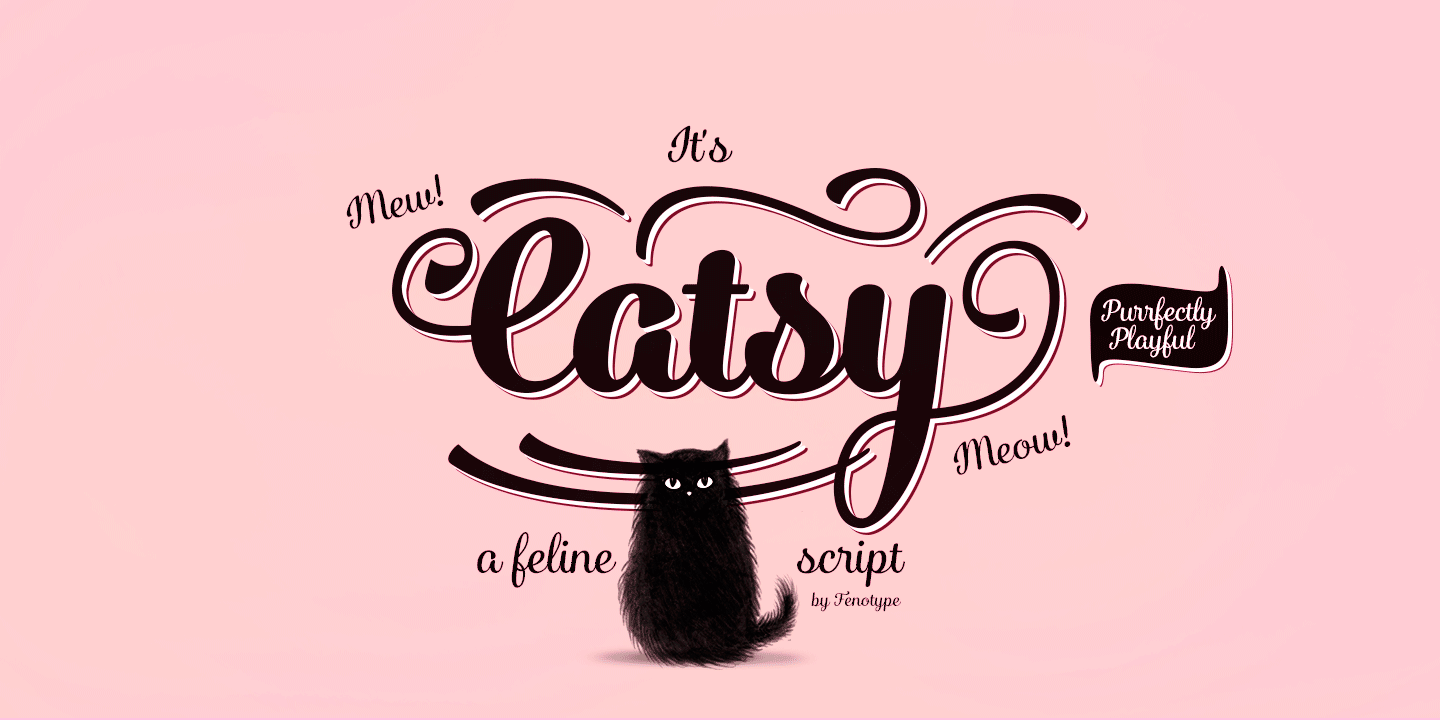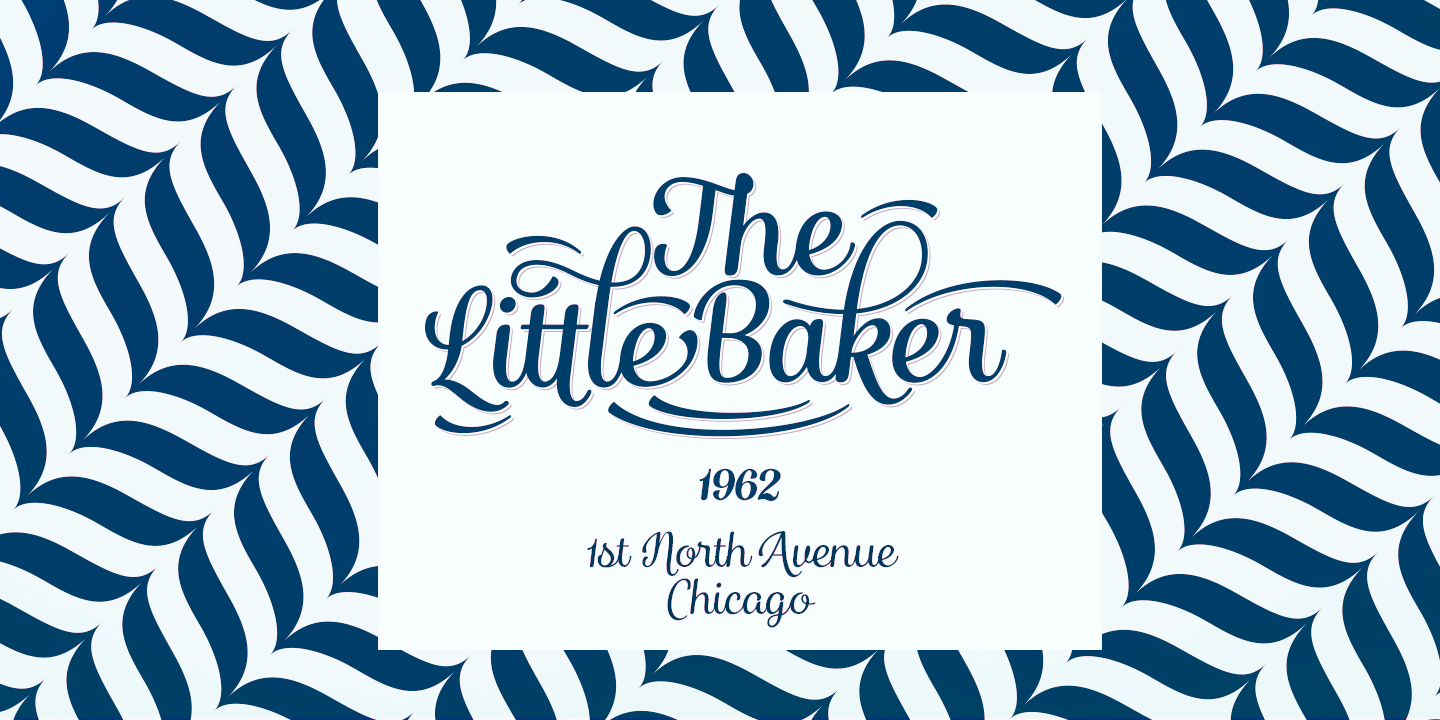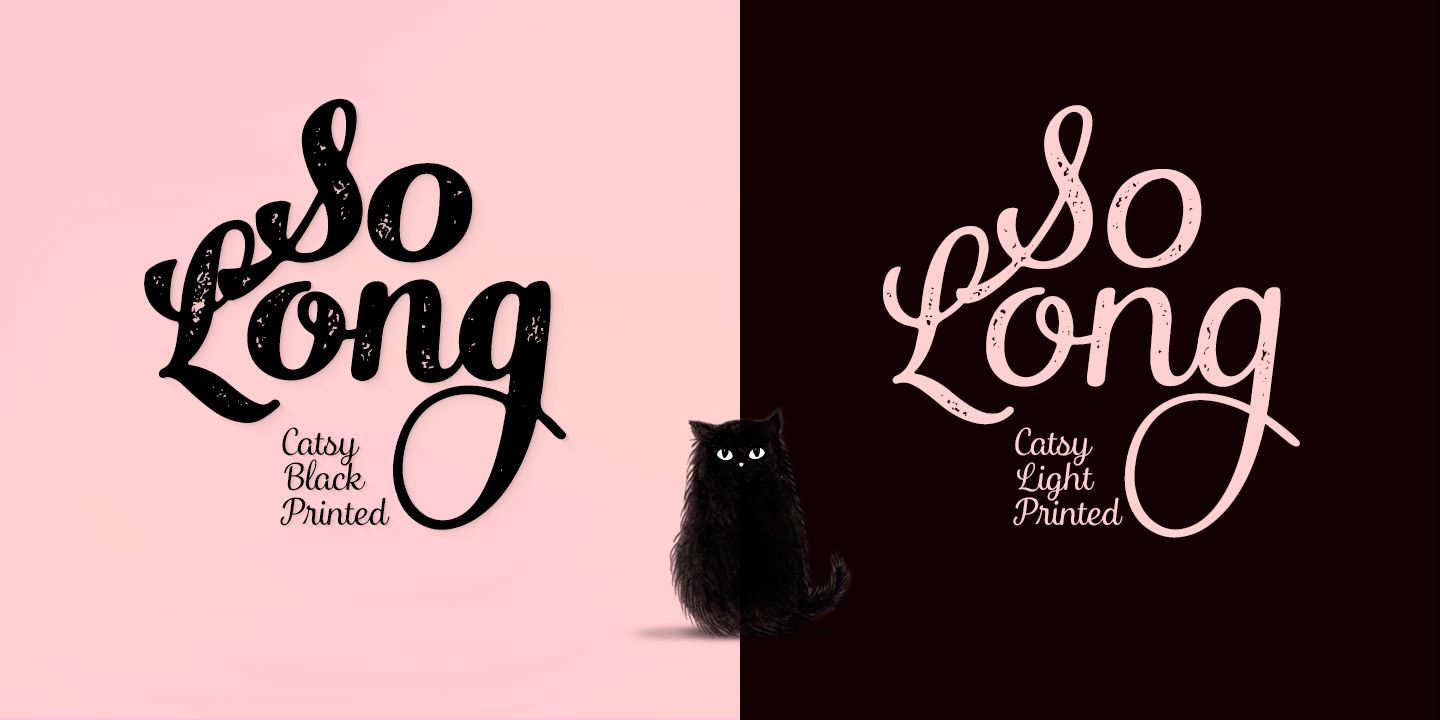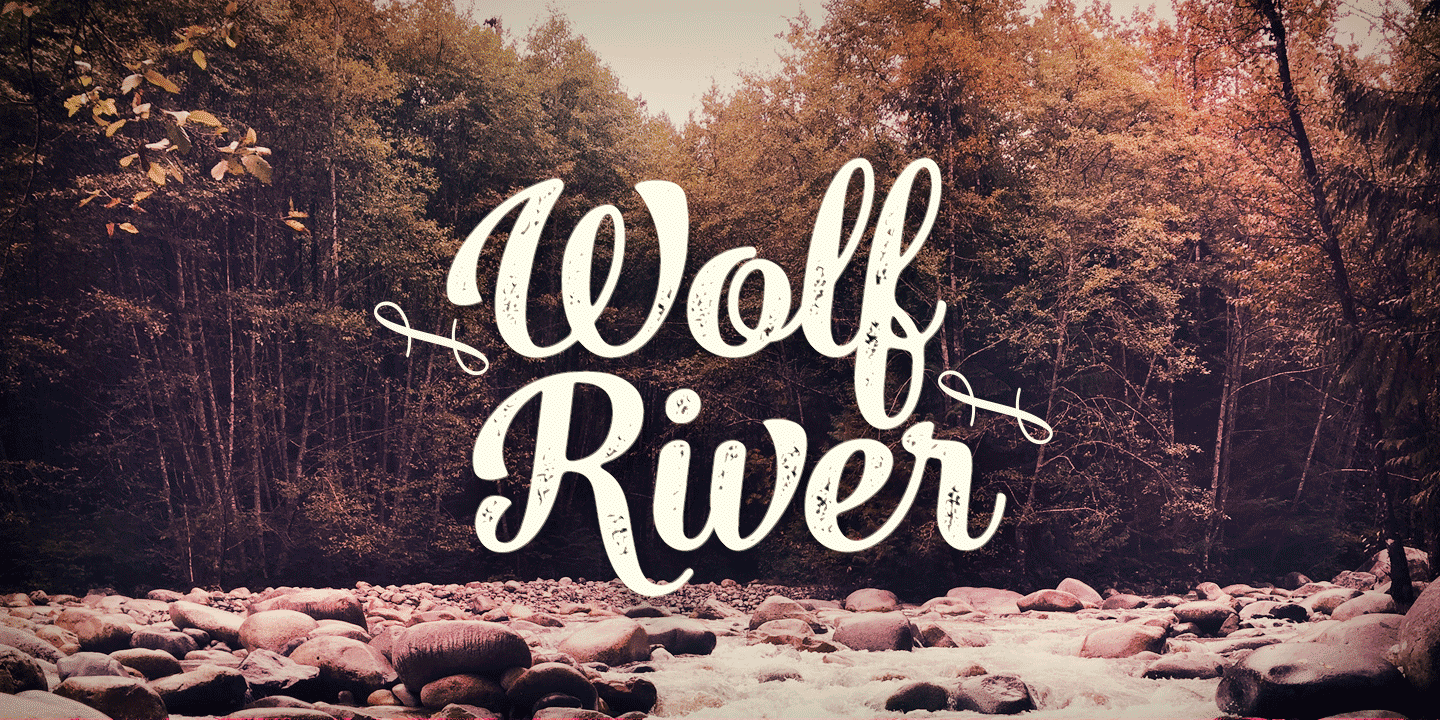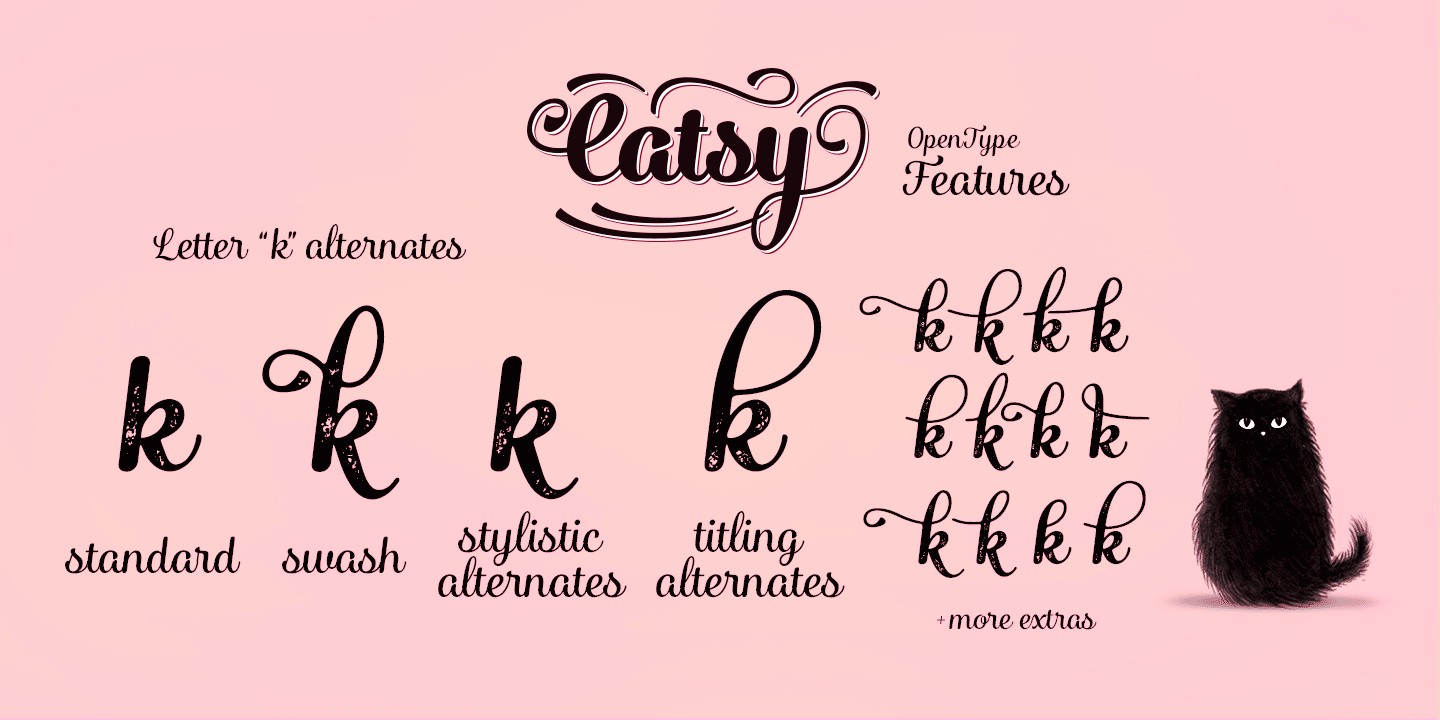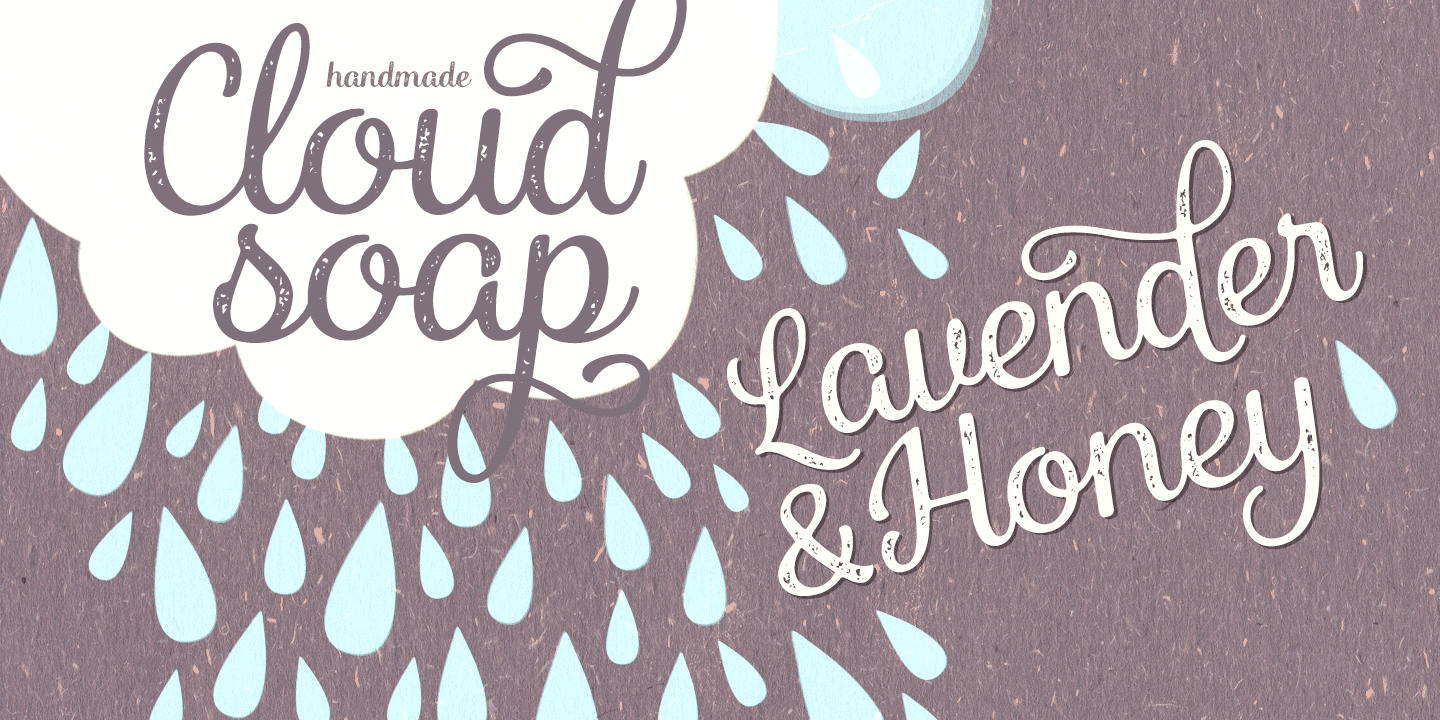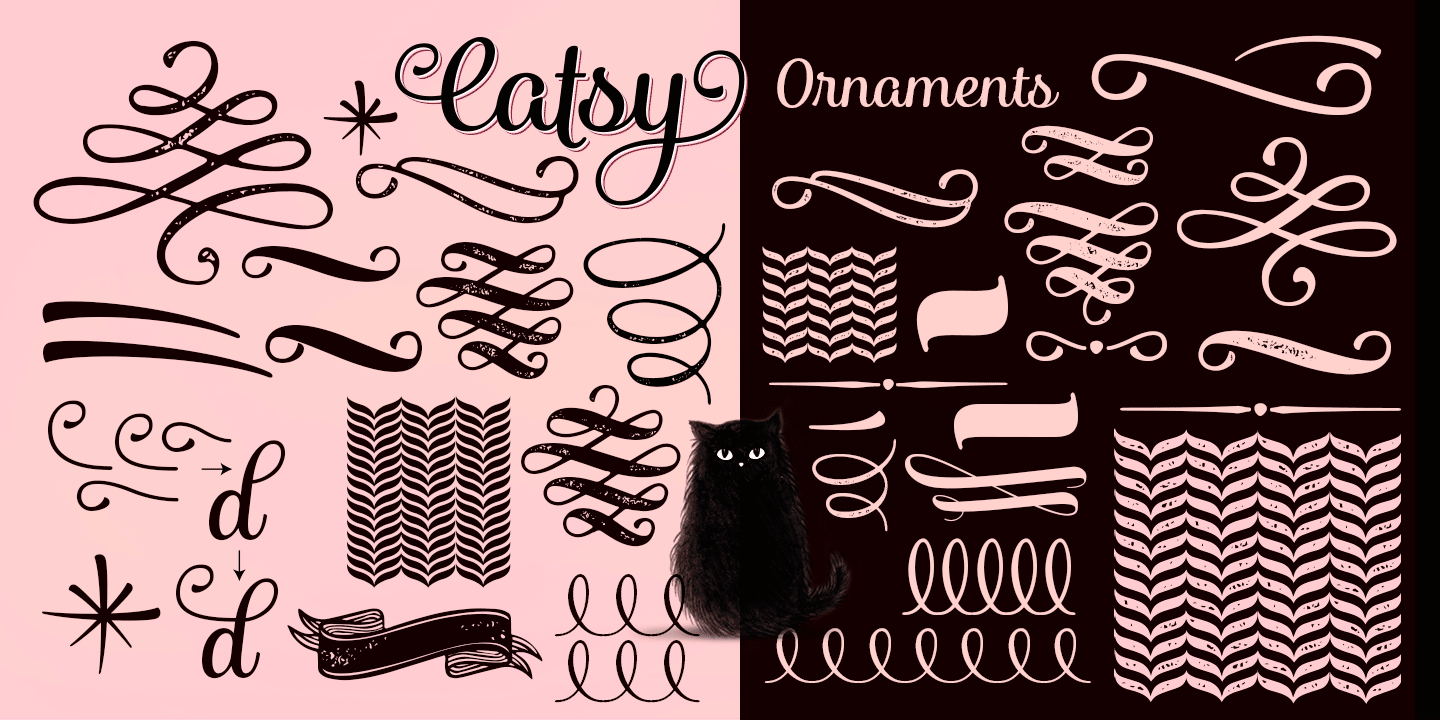
Catsy
Font Family by Fenotype
Catsy is a cute and curly upright script family. Catsy is great for any kind of display use from packaging to poster to headlines. Catsy makes clear word images but if you want more curly action try Swash, Stylist or Titling Alternates on any OpenType savvy software. If that isn't enough you can manually select from even more alternates from Glyph Palette: Each version of Catsy contains more than 700 glyphs. Keep Standard Ligatures on for smooth flow.
Catsy Printed is a texturised version of Catsy. Catsy Printed also has softer features than Catsy. Catsy Ornaments is a pack of 86 extra swashes, badges, ornaments and swirls designed to play with the font, though they work nice on their own as well.